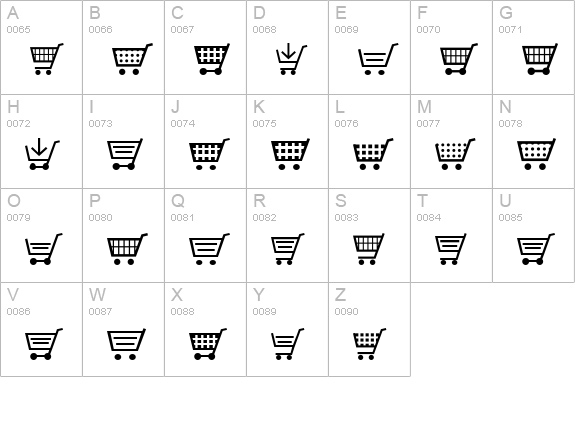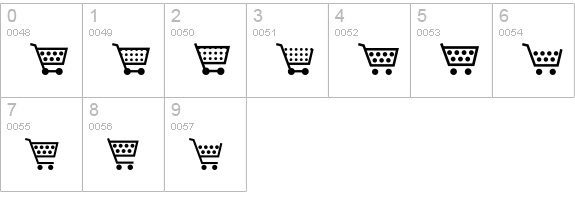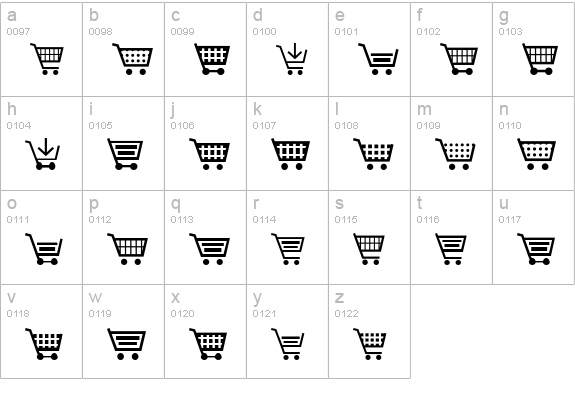
cart o grapher Font Details
The Cartographer font is a versatile and stylish typeface that exudes elegance and sophistication. Its intricate design and precise detailing make it perfect for a wide range of design projects, from branding to editorial design. The unique blend of classic and modern elements in the Cartographer font gives it a timeless appeal that is sure to make your work stand out. What's even better is that the Cartographer font is available for free download at FontsMarket.com. This means you can easily access this stunning font and use it in your projects without any cost. Whether you're a professional designer or just starting out, the Cartographer font is a valuable addition to your font collection. Download it today and elevate your designs with this exceptional typeface.